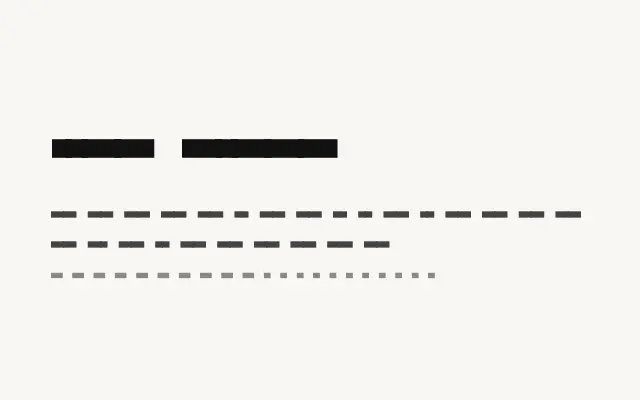
Flow Block
A fully modular block typeface where every letterform is assembled from uniform square units.
Flow Block reduces the alphabet to its most elemental geometric form, constructing letters from a strict grid of solid rectangles. The effect is bold, digital, and distinctly retro, evoking early pixel art and LED signage. It works best at large sizes for posters, experimental branding, or motion graphics where its rigid structure reads as a deliberate design statement.
An experimental display typeface built from solid rectangular block elements, creating a pixelated, modular aesthetic. Letterforms are constructed entirely from uniform square units with no curves.